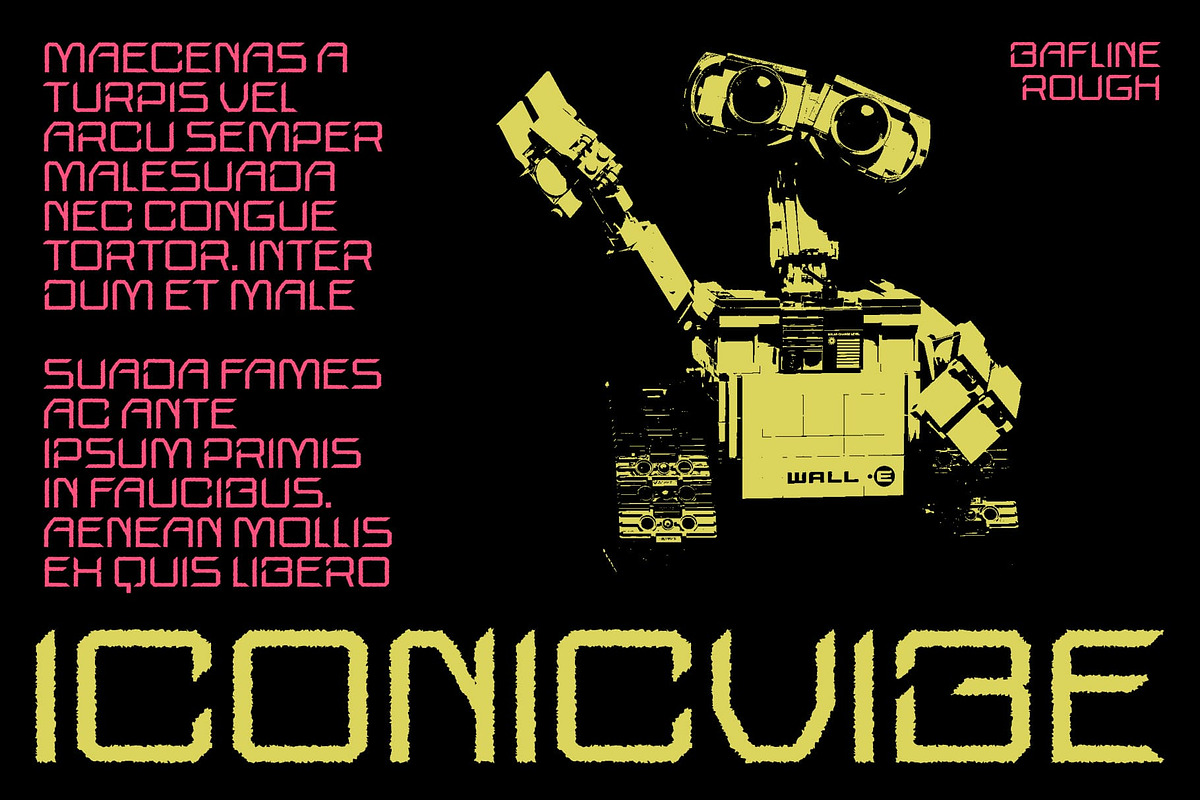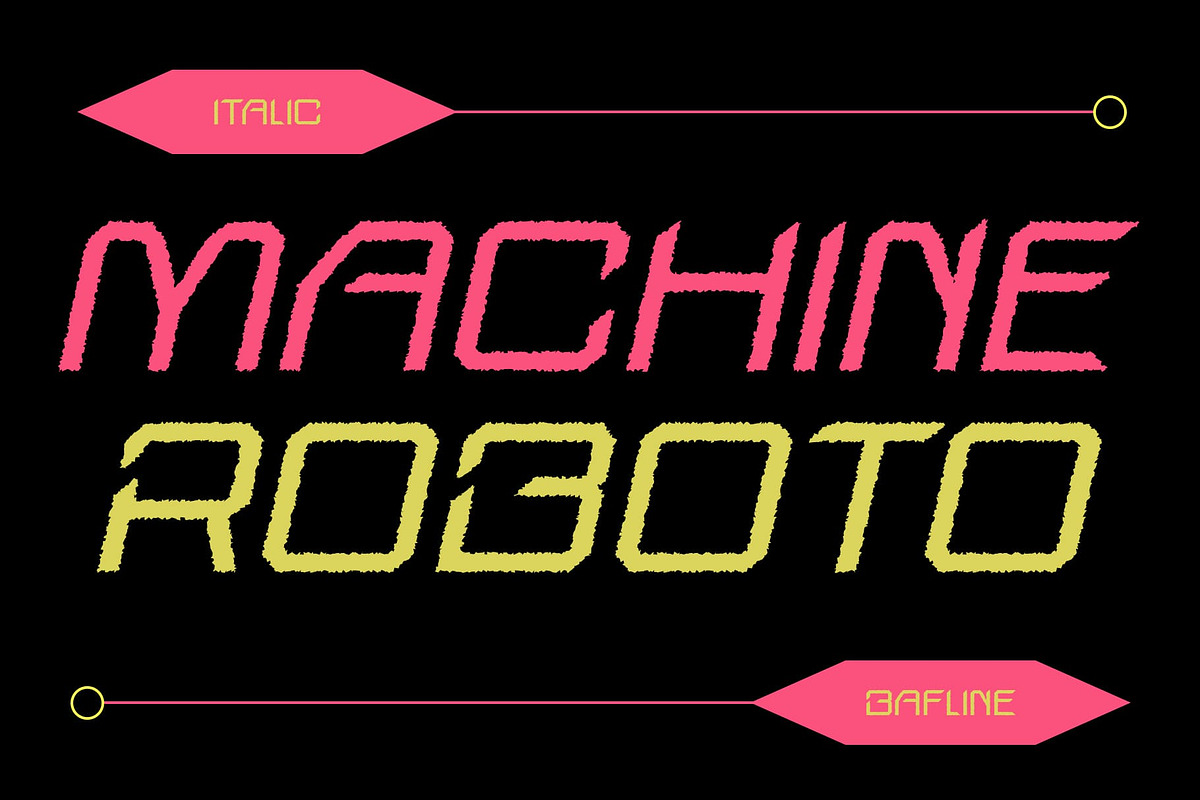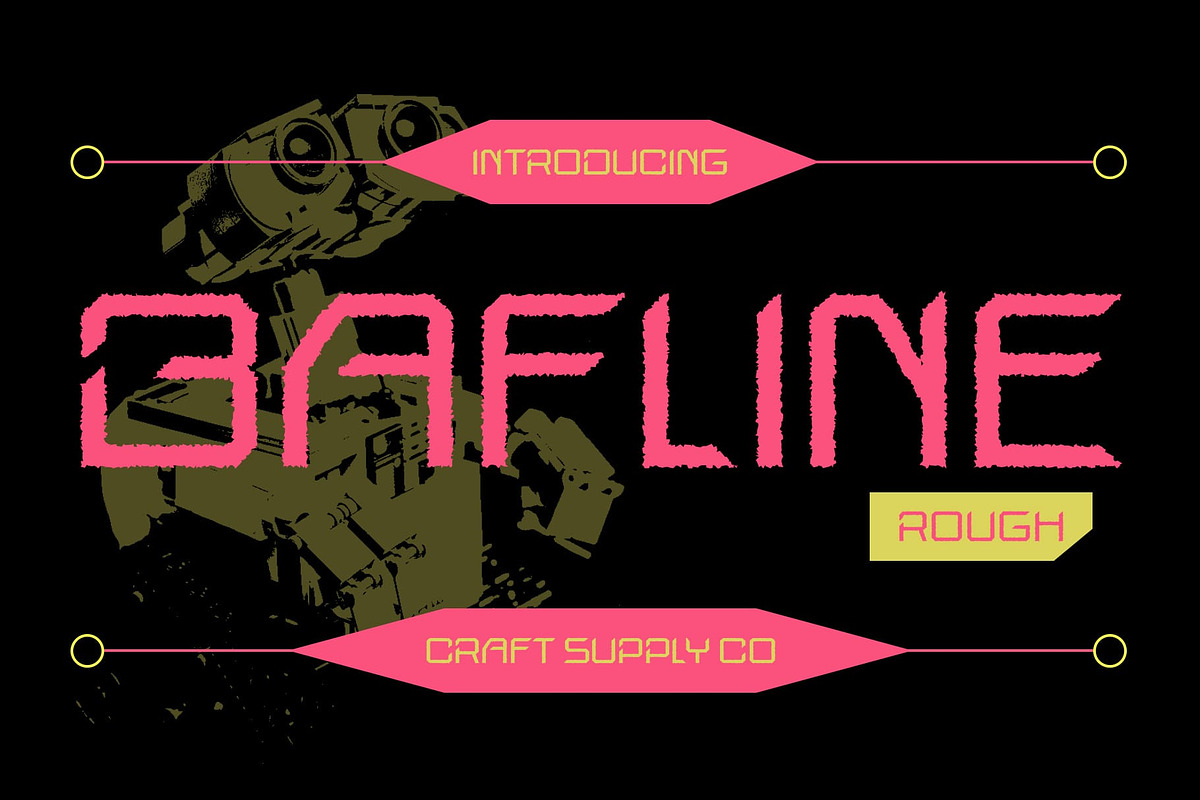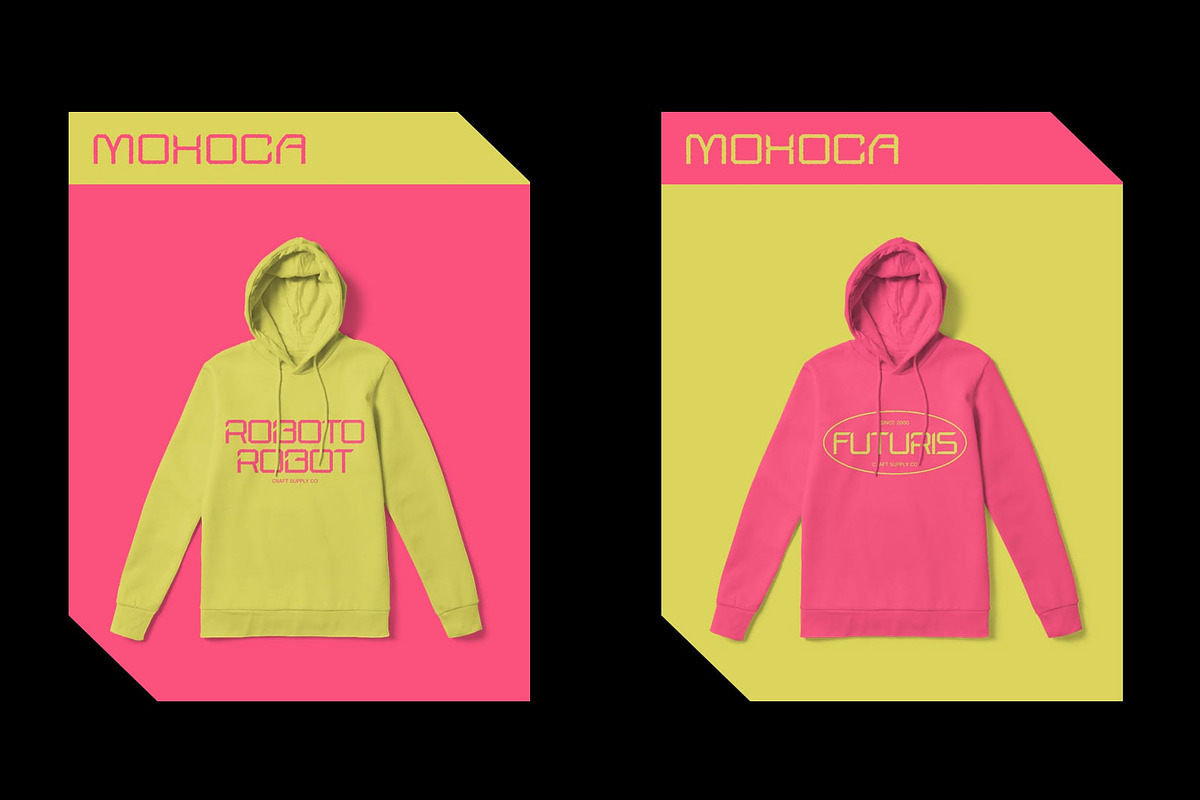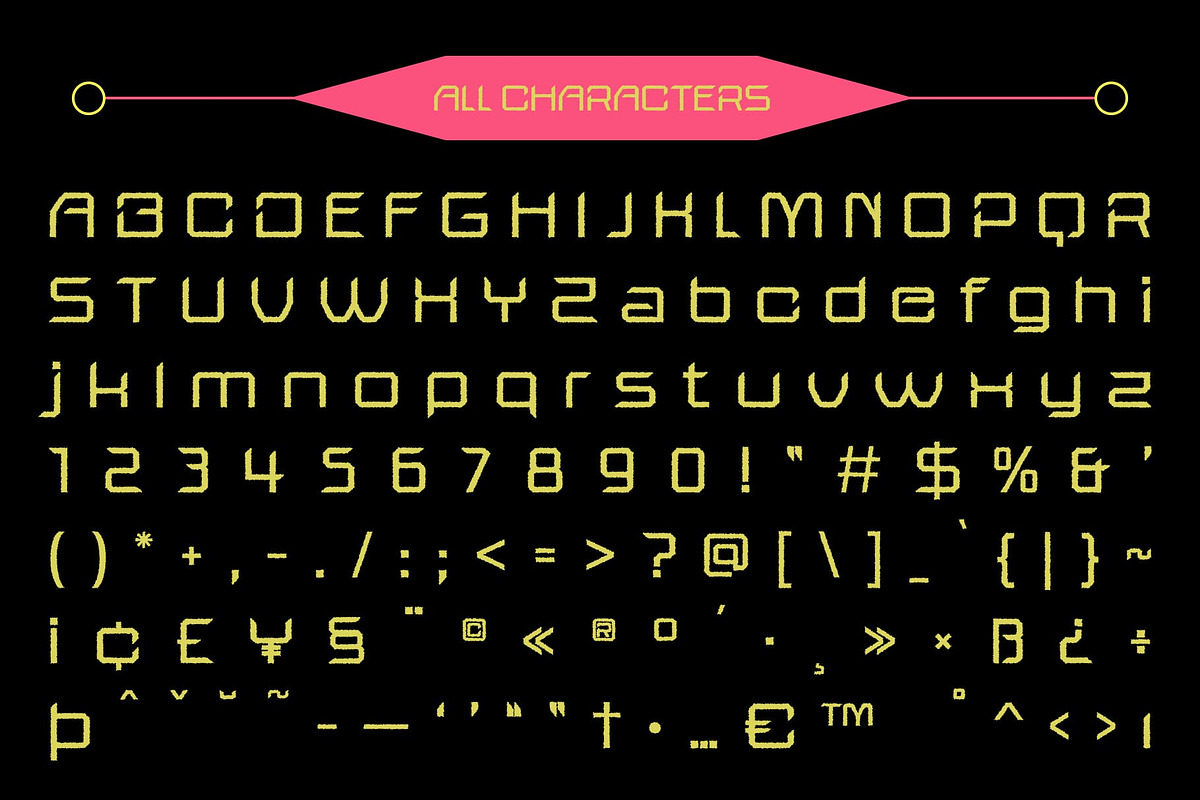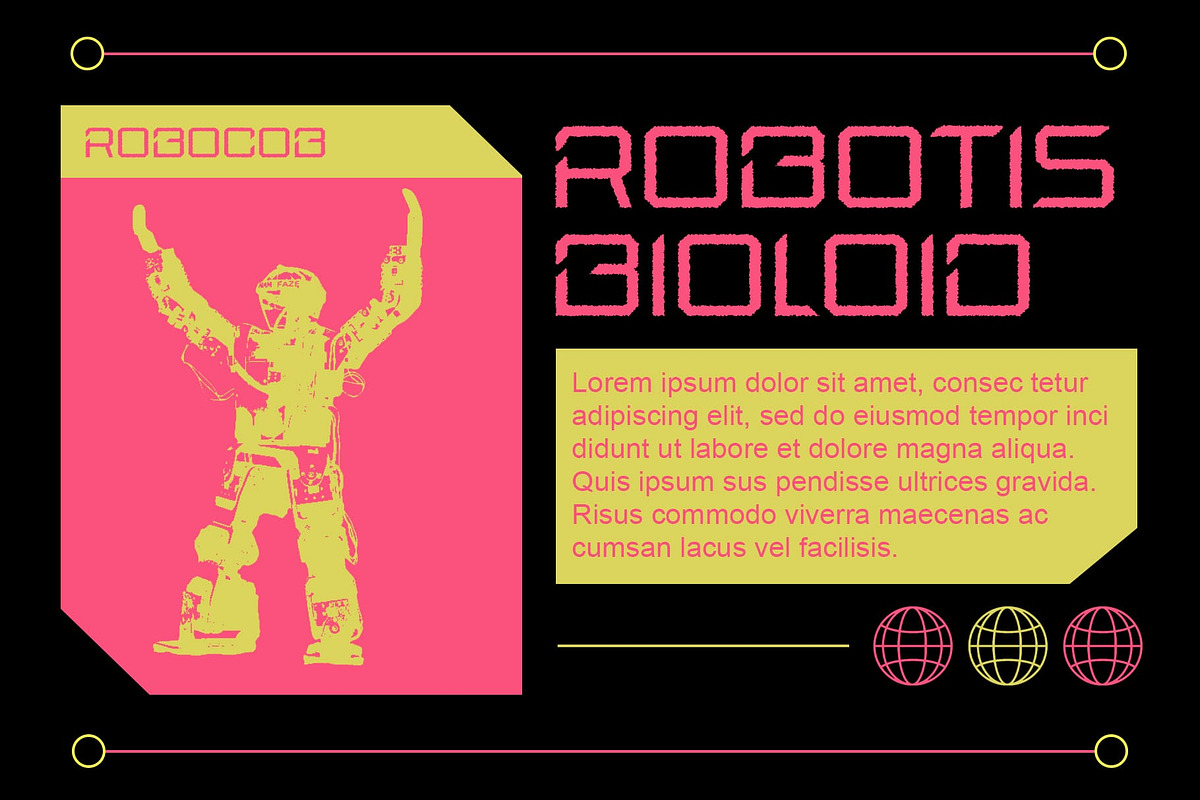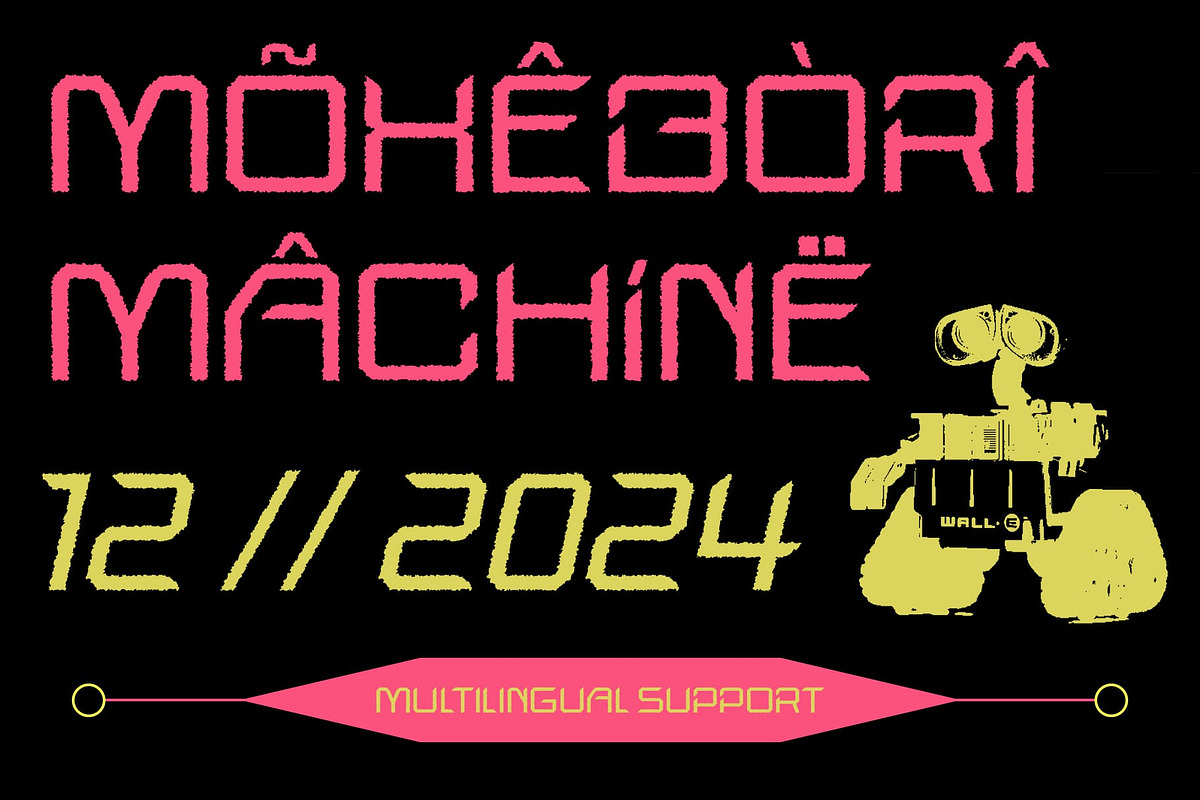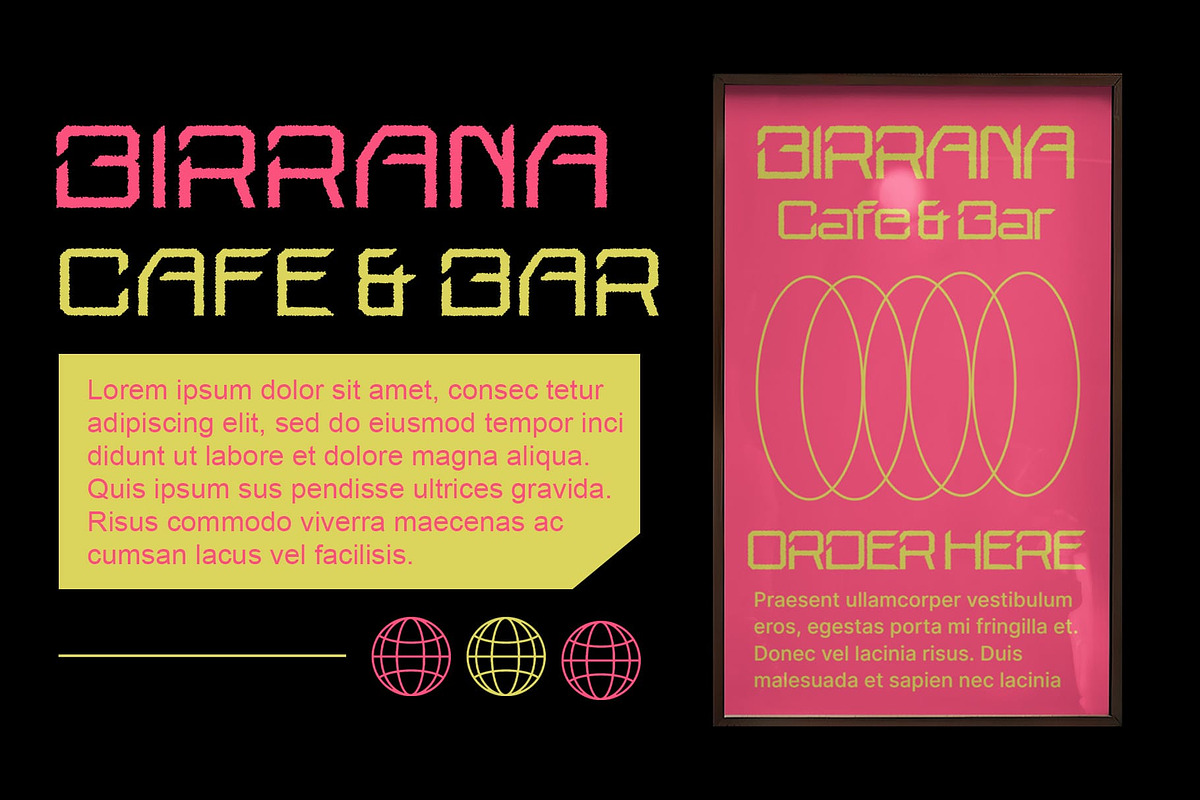
Bafline Rough
Bafline Rough: Vintage Geometric Display Font
Geometric Charm with a Vintage Twist Bafline Rough presents a captivating display font featuring geometric shapes with a vintage-inspired rough effect. Its unique blend of modern geometry and nostalgic texture adds character to any design.
Rough Texture for Vintage Appeal The rough texture of This font lends it a distinct vintage appeal, evoking the charm of retro typography. Each letter exudes authenticity and character, perfect for projects seeking a touch of nostalgia.
Ideal for Display Purposes Tailored for display use, This font excels in various applications, from posters to packaging. Its bold geometric forms and rough texture ensure that your message stands out effectively in any visual context.
Versatile Design Solution Beyond its vintage aesthetic, This font offers versatility in design. Whether for branding, editorial layouts, or digital platforms, its geometric yet rough appearance adds a unique visual flair to any project.
Vintage Appeal with a Modern Edge This font emerges as a versatile display font that seamlessly blends geometric shapes with a vintage rough texture. With its distinctive charm and adaptable design, it’s the perfect choice for projects seeking a balance between modernity and nostalgia. Experience the timeless allure of This font and elevate your designs with its vintage-inspired flair.